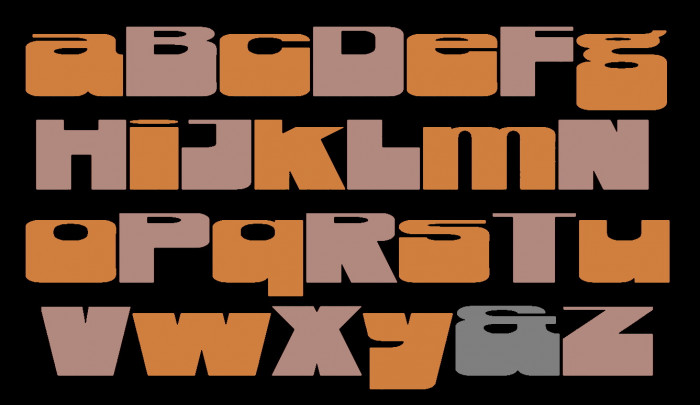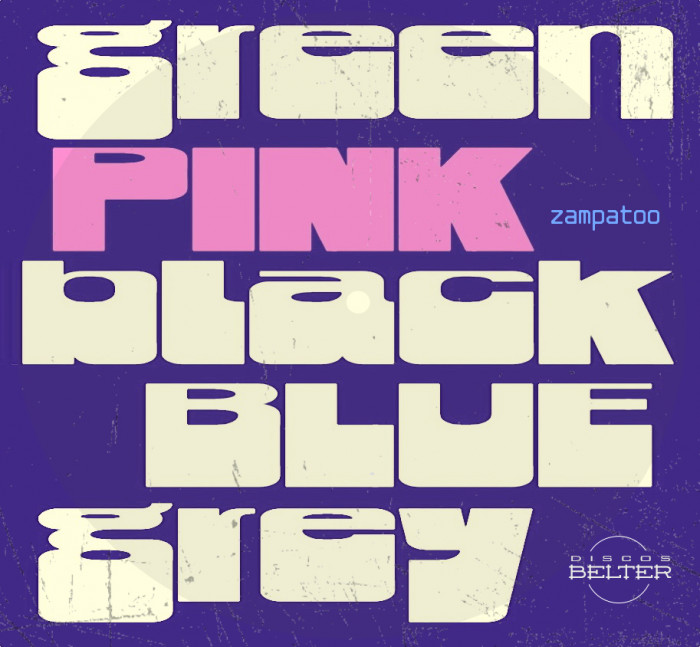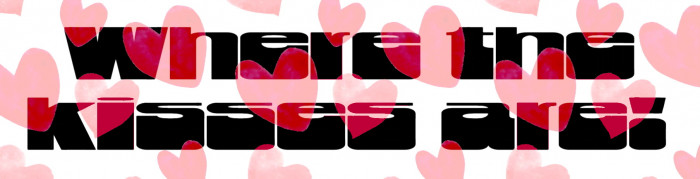
• Font directly inspired by Cookielord's "Gargantua". That's why I thought of calling it "Pantagruel" (remembering the name of the other gluttonous giant, son of Gargantua, immortalized by the writer F. Rabelais), but it didn't start with z -hehehe :) - and I chose "zampatoo" (wich could mean something like "eat-it-all"). The final result has lost the rotund, forceful and fresh aspect of the original, but has retained some of its overall heaviness and massiveness. During the process it has also gained some curves. Risky font. Good for headlines, bad for body text. Extra "tt" ligature at the "fl" glyph. Hope you like it. Yummy, yummy... :D
Font directly inspired by Cookielord's "Gargantua". That's why I thought of calling it "Pantagruel" (remembering the name of the other gluttonous giant, son of Gargantua, immortalized by the writer F. Rabelais), but it didn't start with z -hehehe 😄 - and I chose "zampatoo" (wich could mean something like "eat-it-all"). The final result has lost the rotund, forceful and fresh aspect of the original, but has retained some of its overall heaviness and massiveness. During the process it has also gained some curves. Risky font. Good for headlines, bad for body text. Extra "tt" ligature at the "fl" glyph. Hope you like it. Yummy, yummy... 😋
Reminds me of one of those dyslexia fonts where weight is heavier on the bottom then the top.
Bold and groovy, nice one!
@BWM: Now that you mention it, it's true, although those fonts were much thinner. I haven't seen one of them in years.
Nice bulky letterforms, and perhaps Cookie gave you the inspiration, but it is very much a elmoyenique design in spirit!
Very tasty! I also love the record cover sample.